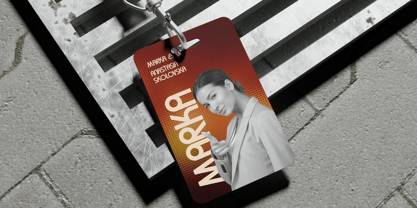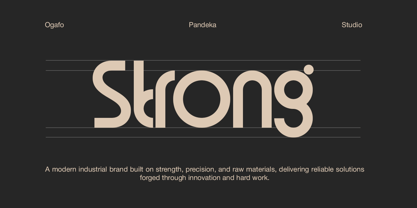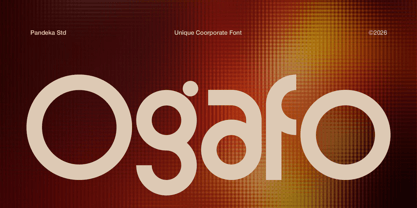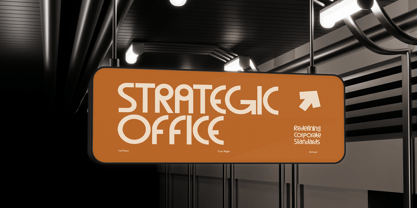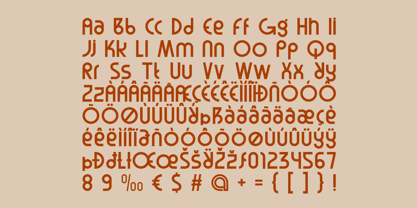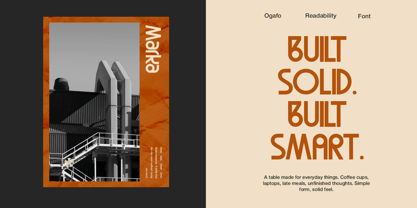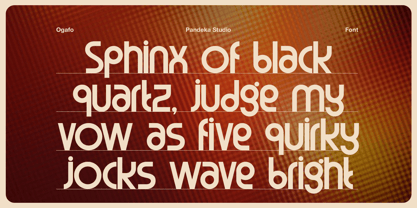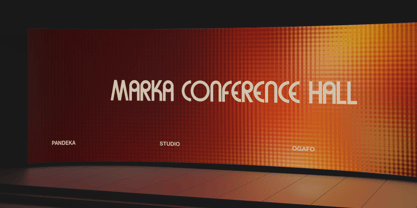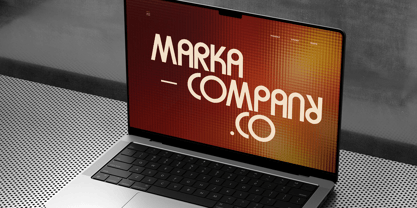
Ogafo
by Pandeka Studio
The Ogafo Font Family was designed by Sagara Nararya and published by Pandeka Studio. Ogafo contains 1 styles. More about this family
Ogafo is a modern and distinctive corporate display font designed to bring a unique yet professional character to contemporary branding. With its smooth curves, geometric structure, and subtle futuristic touch, Ogafo creates a clean, confident, and memorable visual identity for businesses and organizations.
Available in 1 style: Regular, Ogafo includes uppercase & lowercase letters, numerals, punctuation, and multilingual support. Its versatile personality makes it perfect for corporate logos, company profiles, conference branding, business presentations, signage systems, packaging, website headers, and modern marketing materials.
Ogafo balances uniqueness and professionalism, making it ideal for brands that want to stand out while maintaining a strong corporate presence.
Designers: Sagara Nararya
Foundry: Pandeka Studio